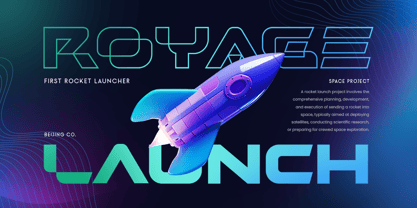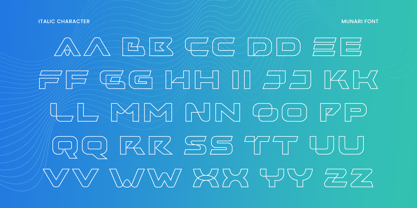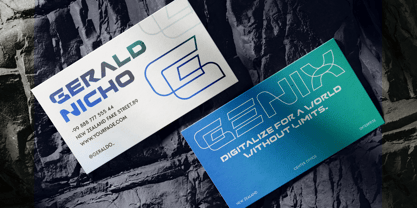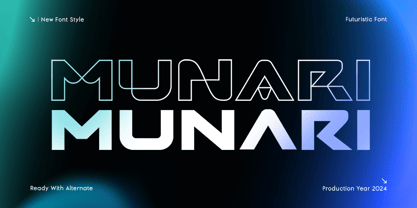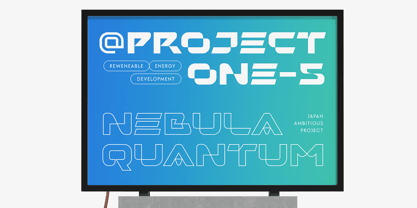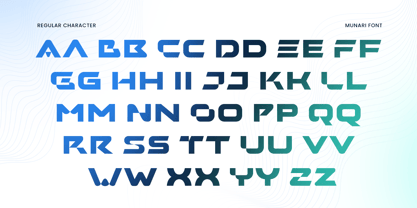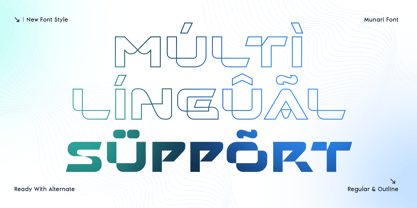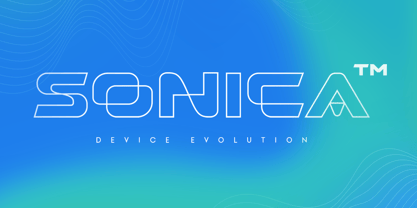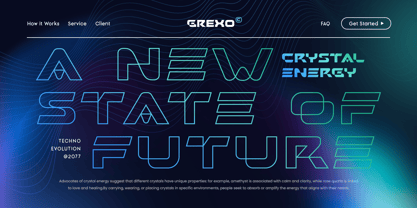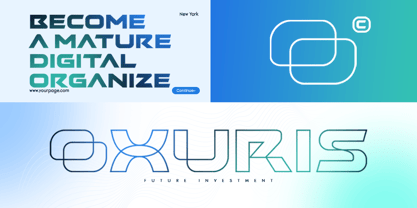
Munari - Futuristic Font
MUNARI is a futuristic font crafted to make a bold statement in any digital or tech-focused design. With its sleek and geometric letterforms, MUNARI offers a clean, high-tech aesthetic perfect for logos, digital branding, and innovative design projects.
Ideal for sci-fi themes, technology startups, and cutting-edge branding, MUNARI brings a modern and forward-thinking vibe to your designs. Its minimalist structure and bold presence ensure that your brand stands out, whether in print or on the screen.
MUNARI – Futuristic Font Features
Sleek, modern letterforms with a futuristic edge
Ideal for tech branding, logos, and digital design
Includes uppercase, lowercase, numerals, and punctuation
Clean, geometric design with a high-tech feel
OpenType features for advanced typographic control
Multilingual support for
Afrikaans, Albanian, Asu, Basque, Bemba, Bena, Breton, Chiga, Cornish, Dutch, English, Estonian, Filipino, Finnish, Friulian, Galician, German, Gusii, Indonesian, Irish, Italian, Kabuverdianu, Kalenjin, Kinyarwanda, Luo, Luxembourgish, Luyia, Machame, Makhuwa-Meetto, Makonde, Malagasy, Manx, Morisyen, North Ndebele, Nyankole, Oromo, Portuguese, Quechua, Romansh, Rombo, Rundi, Rwa, Samburu, Sango, Sangu, Scottish Gaelic, Sena, Shambala, Shona, Soga, Somali, Spanish, Swahili, Swedish, Swiss, and more.